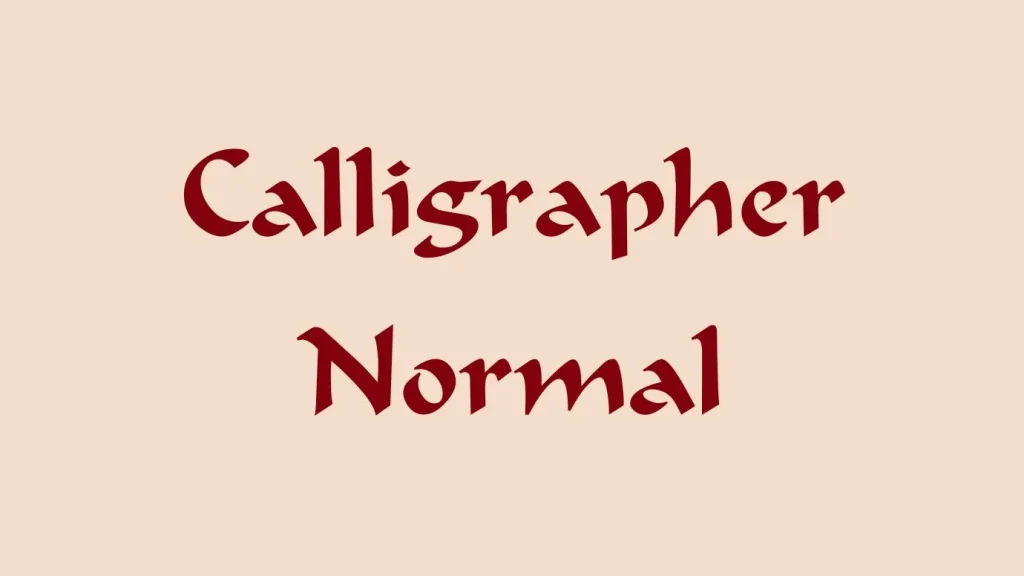
Calligrapher Normal Font is designed by Bay Animation Inc. It is a cool typeface that is appropriate for a variety of projects. Users can create unique designs by using the generation tool facility, to convert the text into a beautiful design.
Because of its unique and fashionable appearance, you can use this typeface to generate stylish designs. Due to its flawless style, the font can create a beautiful design for your project and it is incredibly easy to use.
The letters of this font demonstrate its versatility each letter has been created beautifully. This style works best in Canva to create amazing designs for projects. When you combine this typeface with the numpty font, you have the potential to create stunning displays.
| Name | Calligrapher Normal Font |
| Designer | Bay Animation Inc |
Users have used this beautiful design for individual websites or posts. This elegant typeface may also be used for branding, graphic designs, covers, and poster designs, you can also create business cards, logos, and product designs with its clean and elegant textures.
This typeface works well for social media titles, names, and home décor designs. This typeface may be used by designers to create book covers, animated movie posters, comic magazines, etc.
There are several uses of this typeface to design various projects. A beautiful typeface can also be used to design banner designs, logos, wall paintings, and many other projects.
Besides product titles, this typeface is also perfect for designing beautiful logo designs. This typeface has rare and unique glyphs.
Is Calligrapher Normal a decent font?
Yes, the typeface is an excellent one. For headlines, billboards, and other visuals, it is a fantastic option.
Why is Calligrapher Normal typeface so widely used?
The popularity of this typeface is due to a number of factors. There are several movies and tv programs that used the typeface.